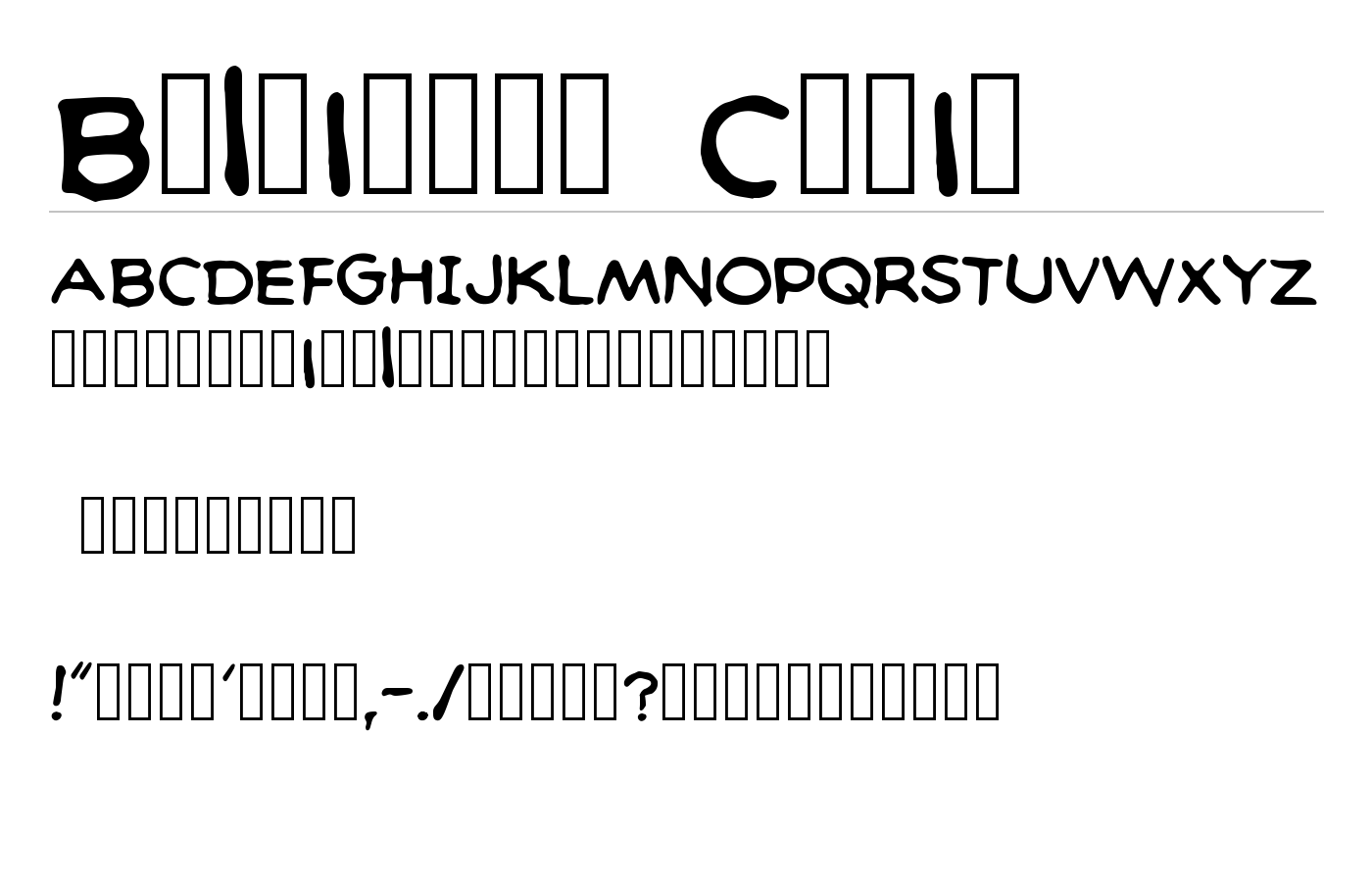
Baltimore Comic Font is a playful and informal sans serif typeface with a hand-drawn feel, characterized by its irregular strokes and slightly quirky letterforms. Its light to medium weight, moderate contrast, and wide spacing make it perfect for casual, fun designs such as comics, children's books, and creative projects that want to convey friendliness and approachability. This font works best in headlines and short texts where its unique personality can shine without compromising readability.
Baltimore Comic Font
About Baltimore Comic Font